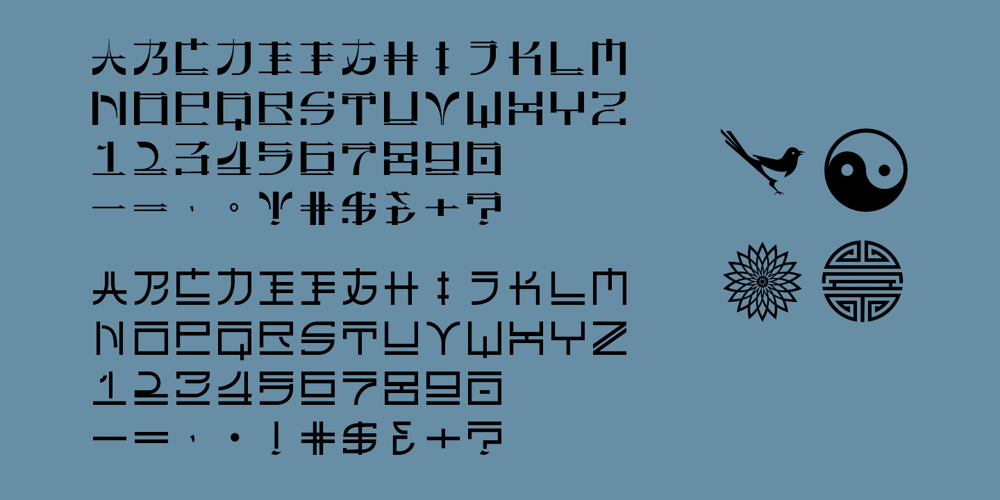
Faux Chinese Font Family was designed by Roger Vershen and published by Page Studio Graphics. Faux Chinese contains 2 styles and family package options. Modern Chinese typography is the basis for these two simulation fonts, combined in one package. Includes upper case alphabets, numerals, and basic punctuation in two styles, as well as symbols: magpie (the Bird of Joy), chrysanthemum, shou, and Yin-Yang.